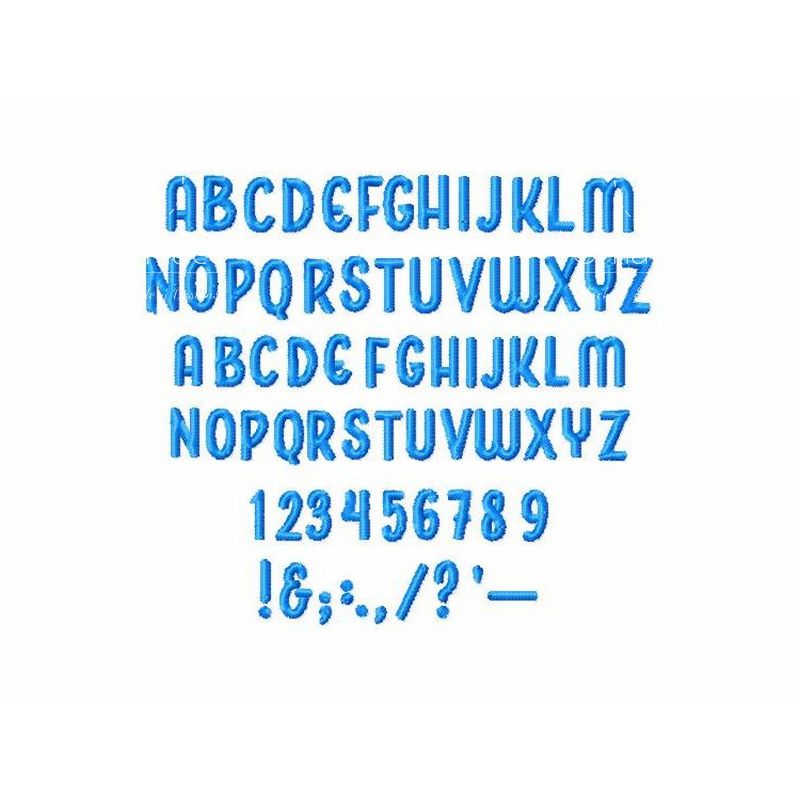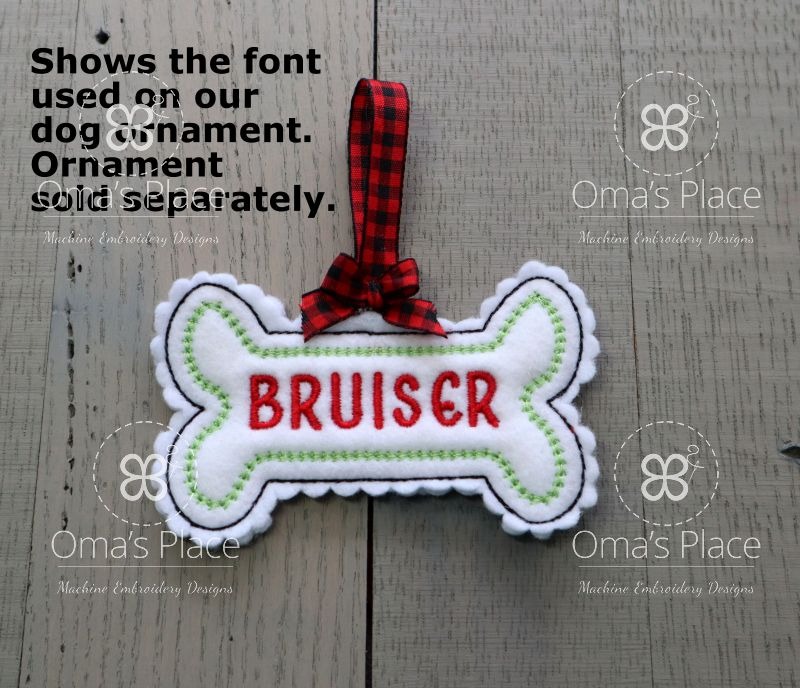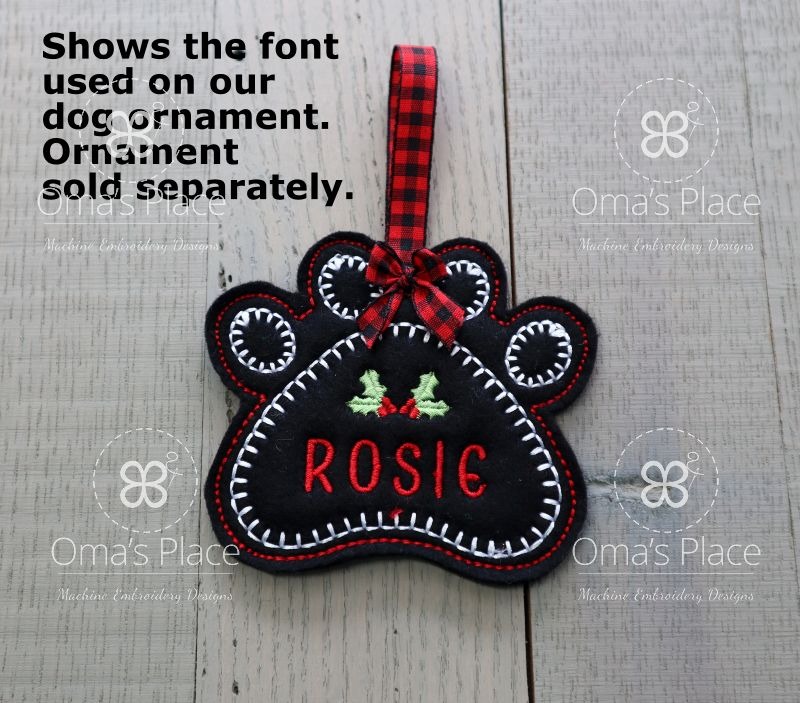
Boucherie Bold 1/2″ Font
This fun font is perfect when you are looking for a font that does not have descenders below the baseline. Only the letter Q descends below the baseline and then only slightly. It’s great for adding that personalized touch to a project’s label. This bold version stitches very well on felt, velvet, low pile Minky.
The “lower case” letters are actually capital letters that are just a little smaller than the capital ones. So, in essence it’s like a 2 sized monogram with punctuations and numbers.
The font includes numbers 0 through 9 as well as 10 commonly used punctuations.